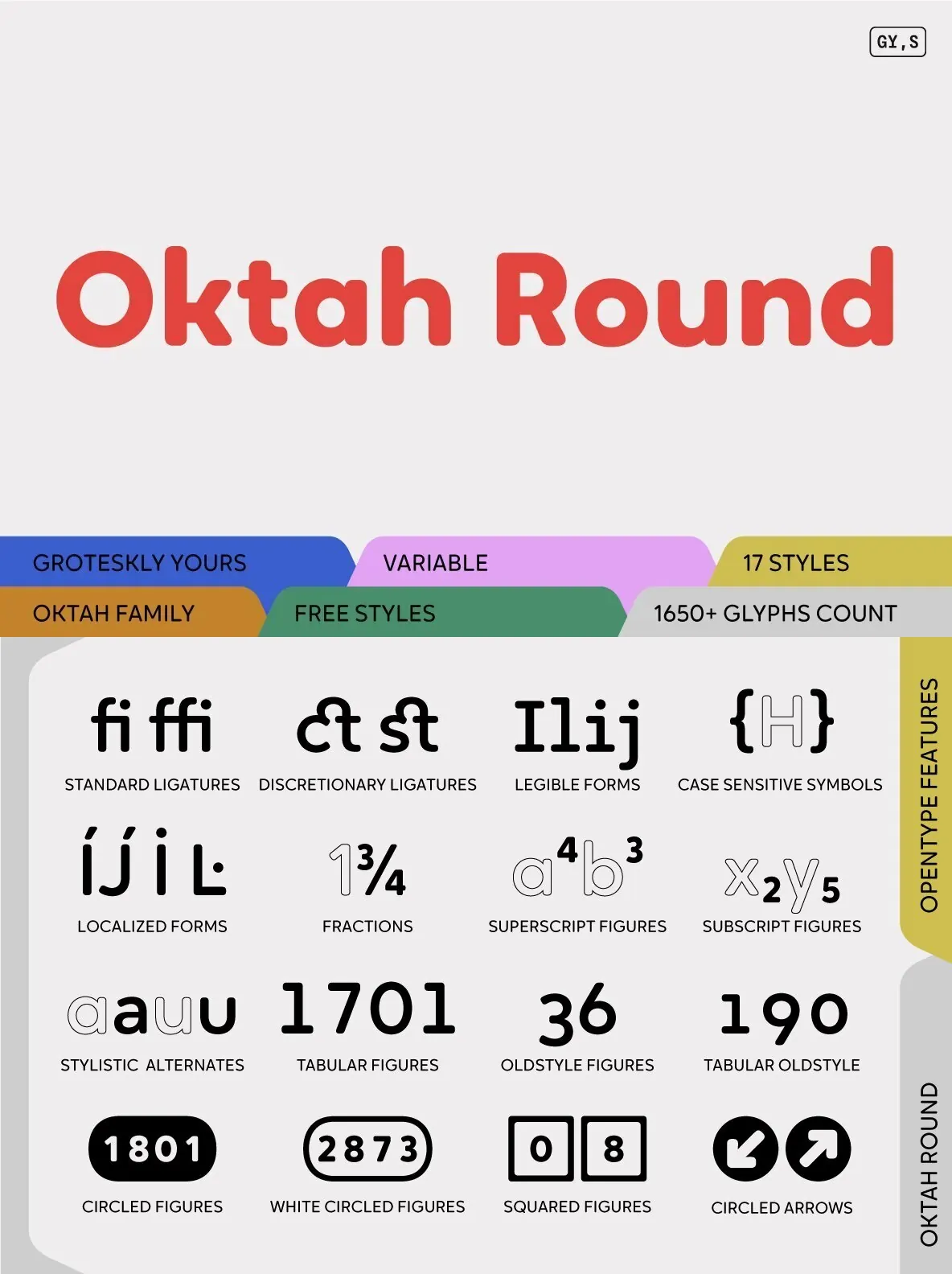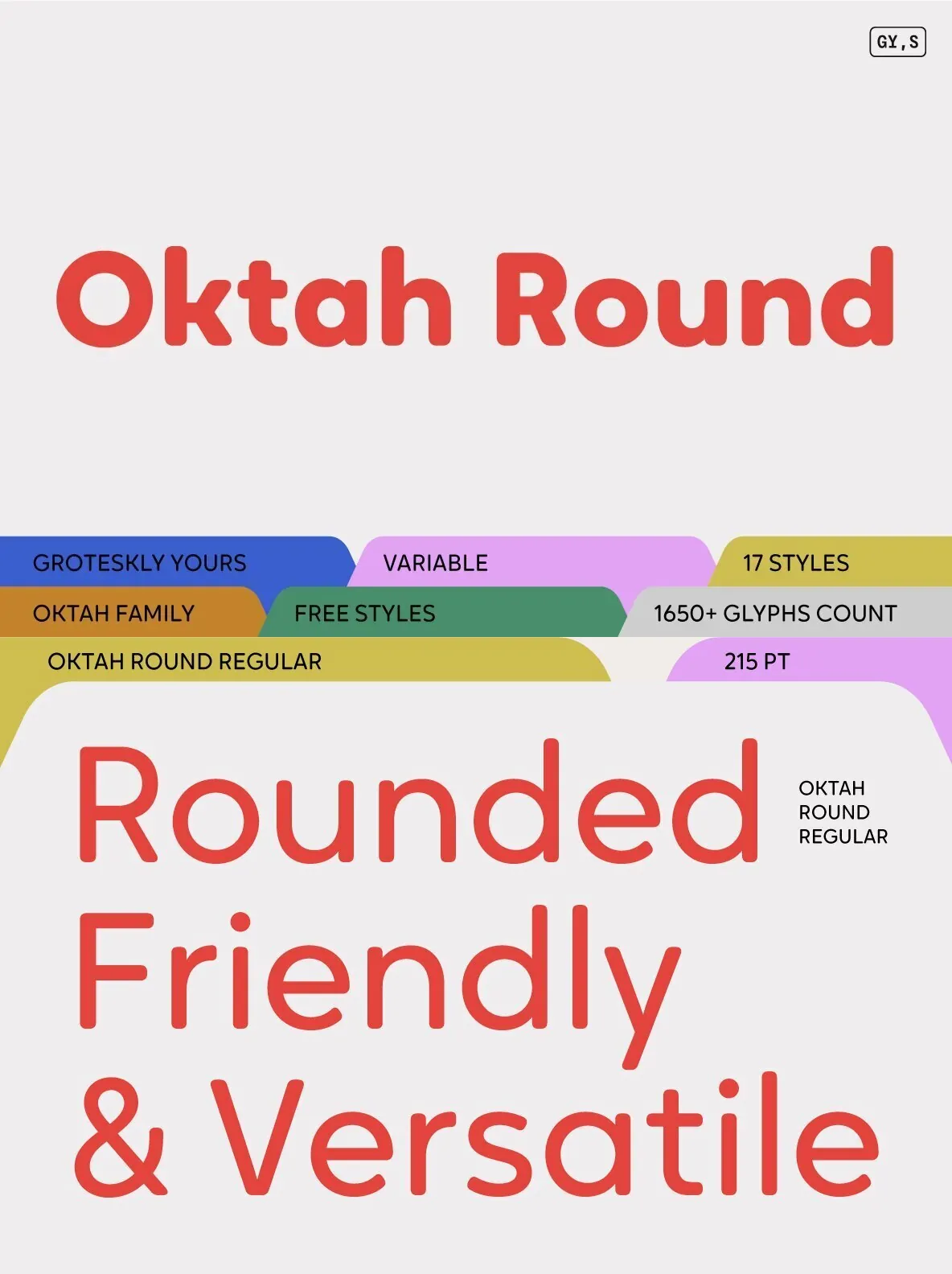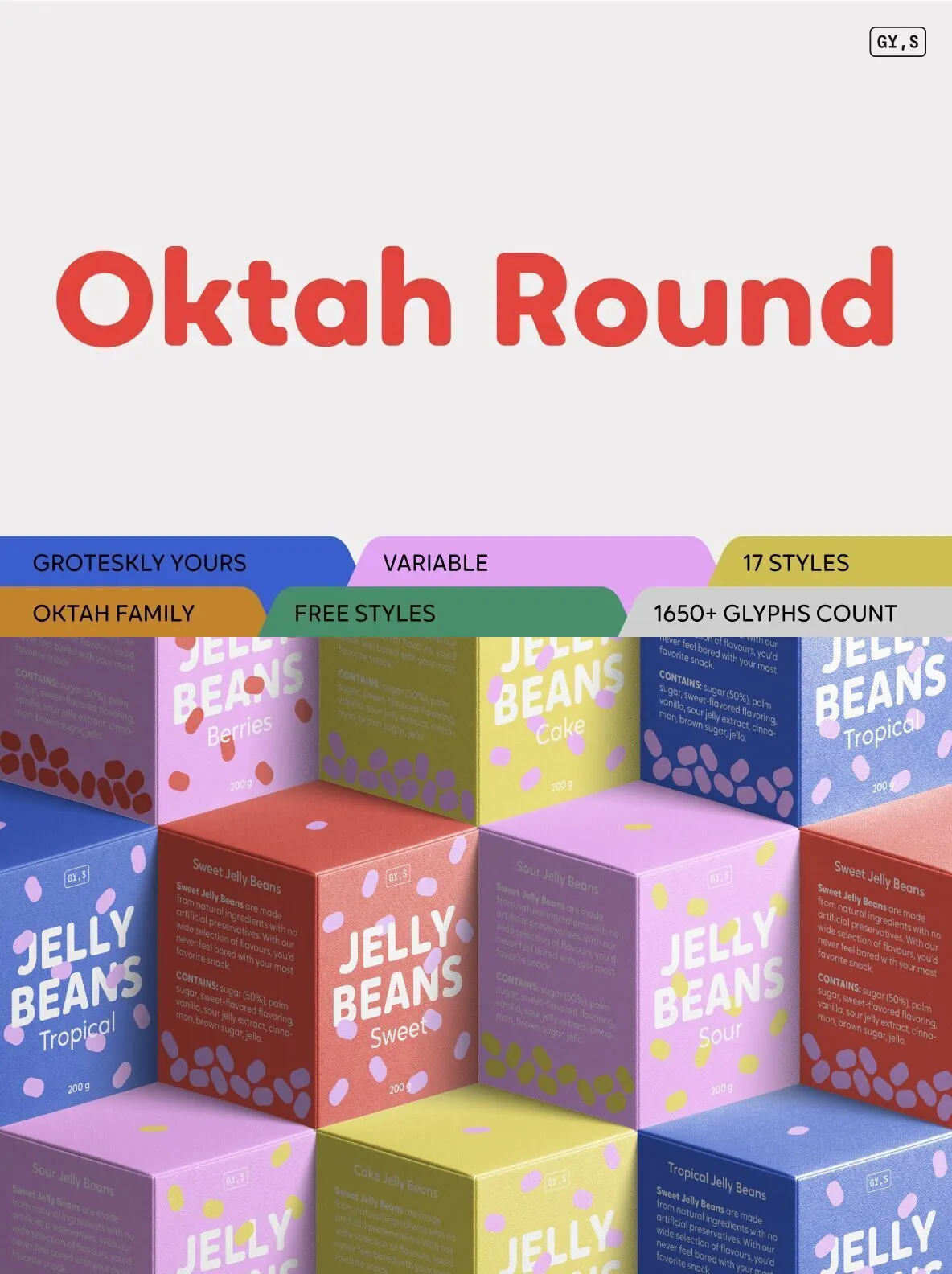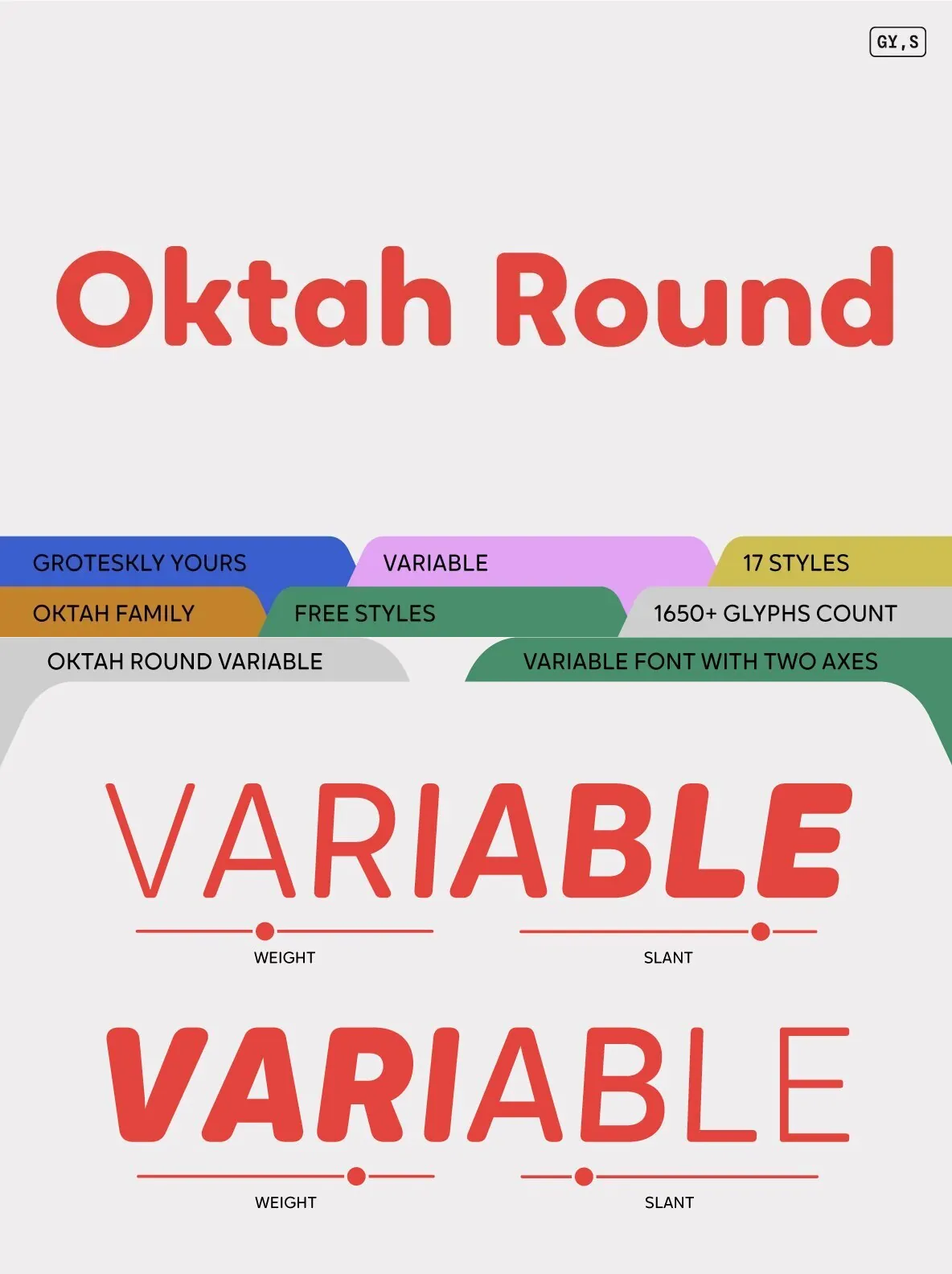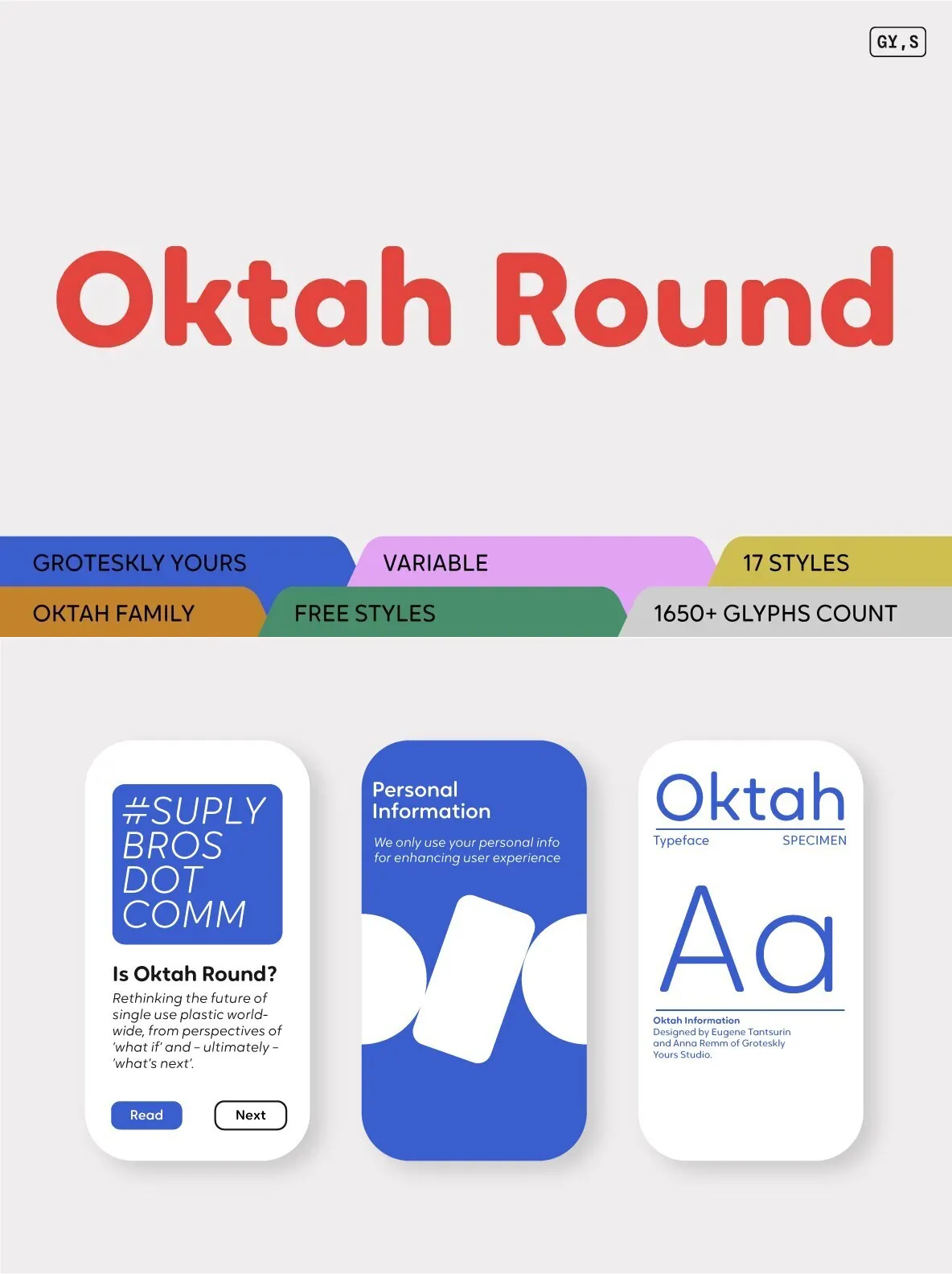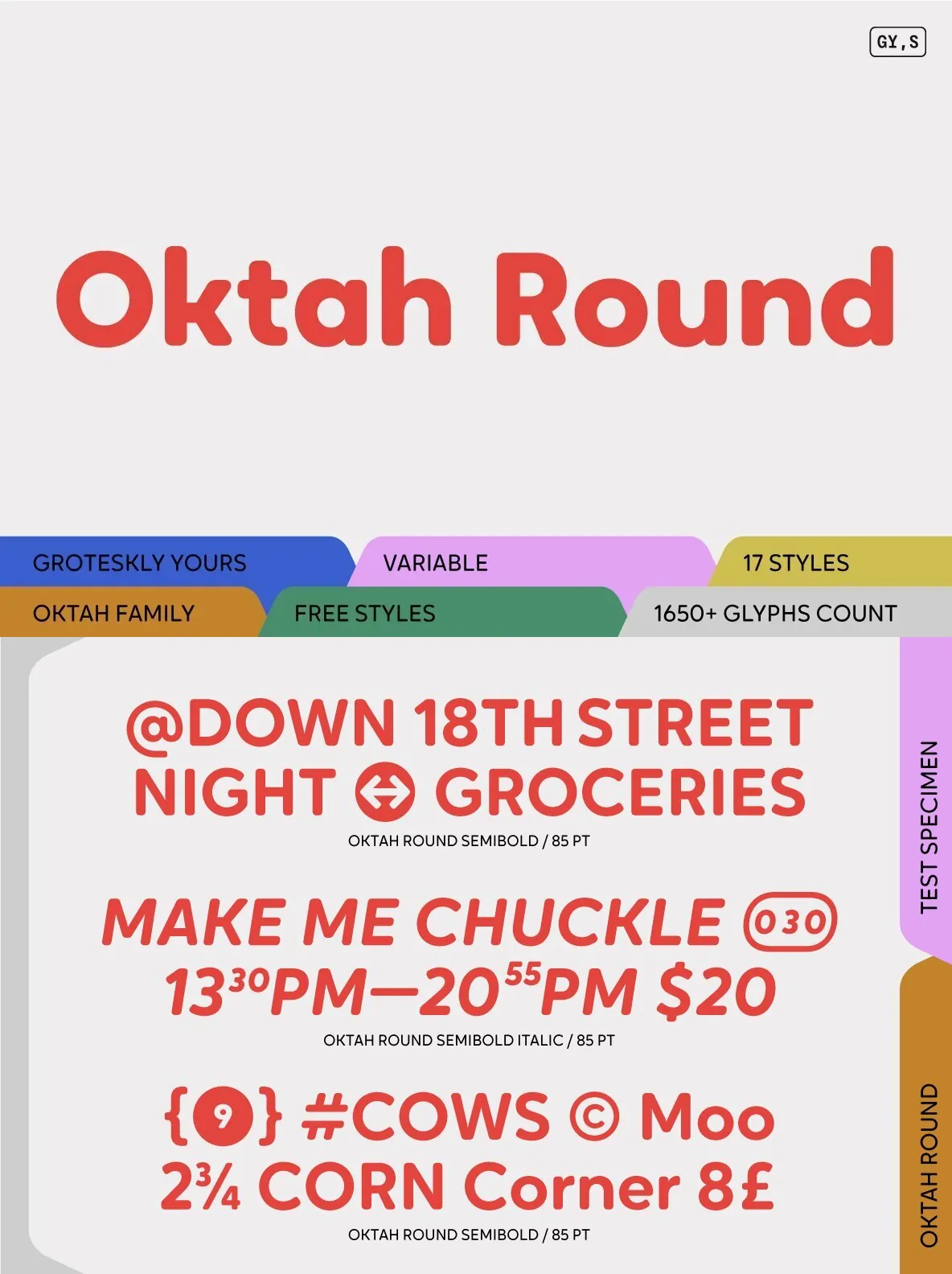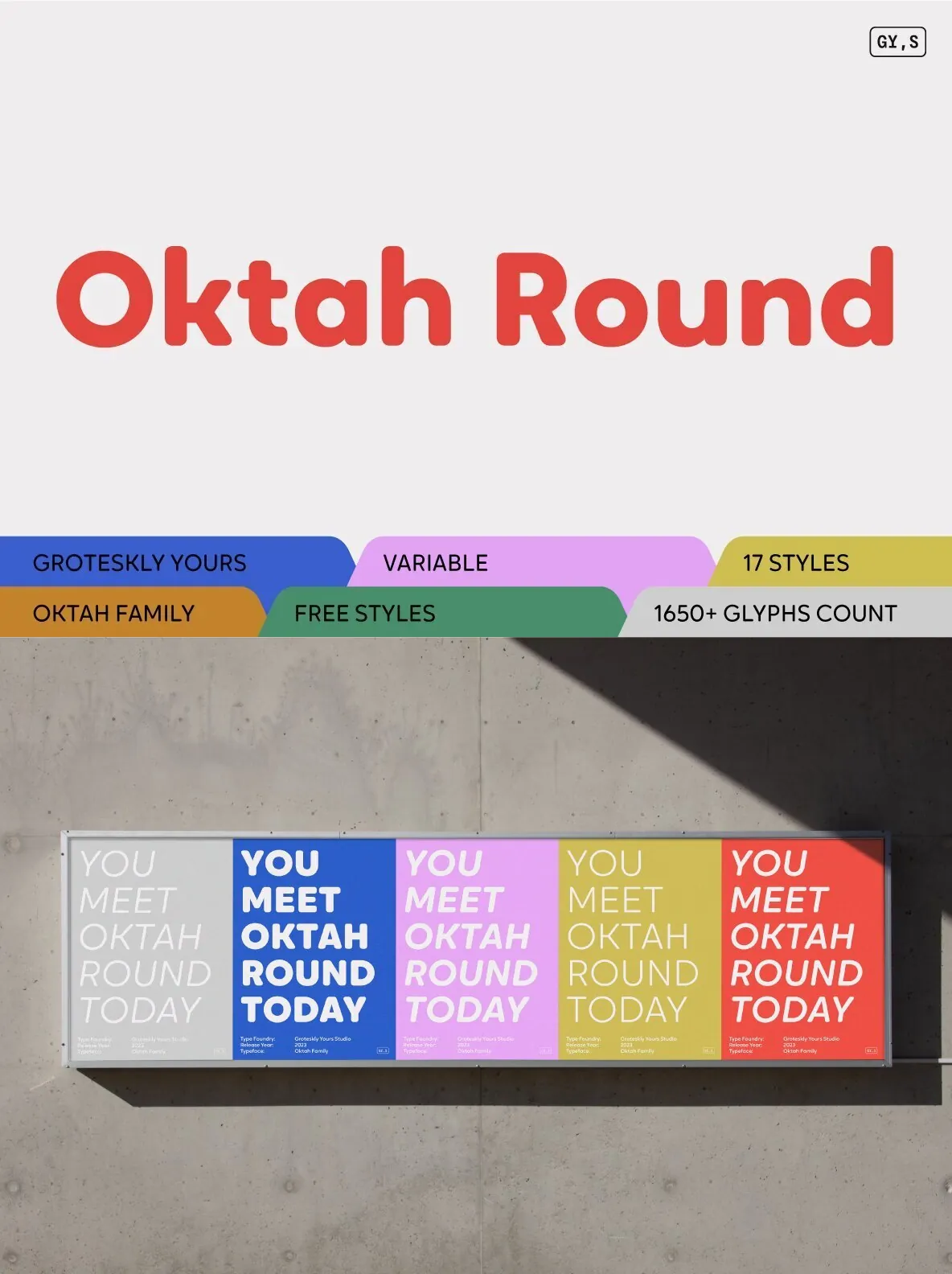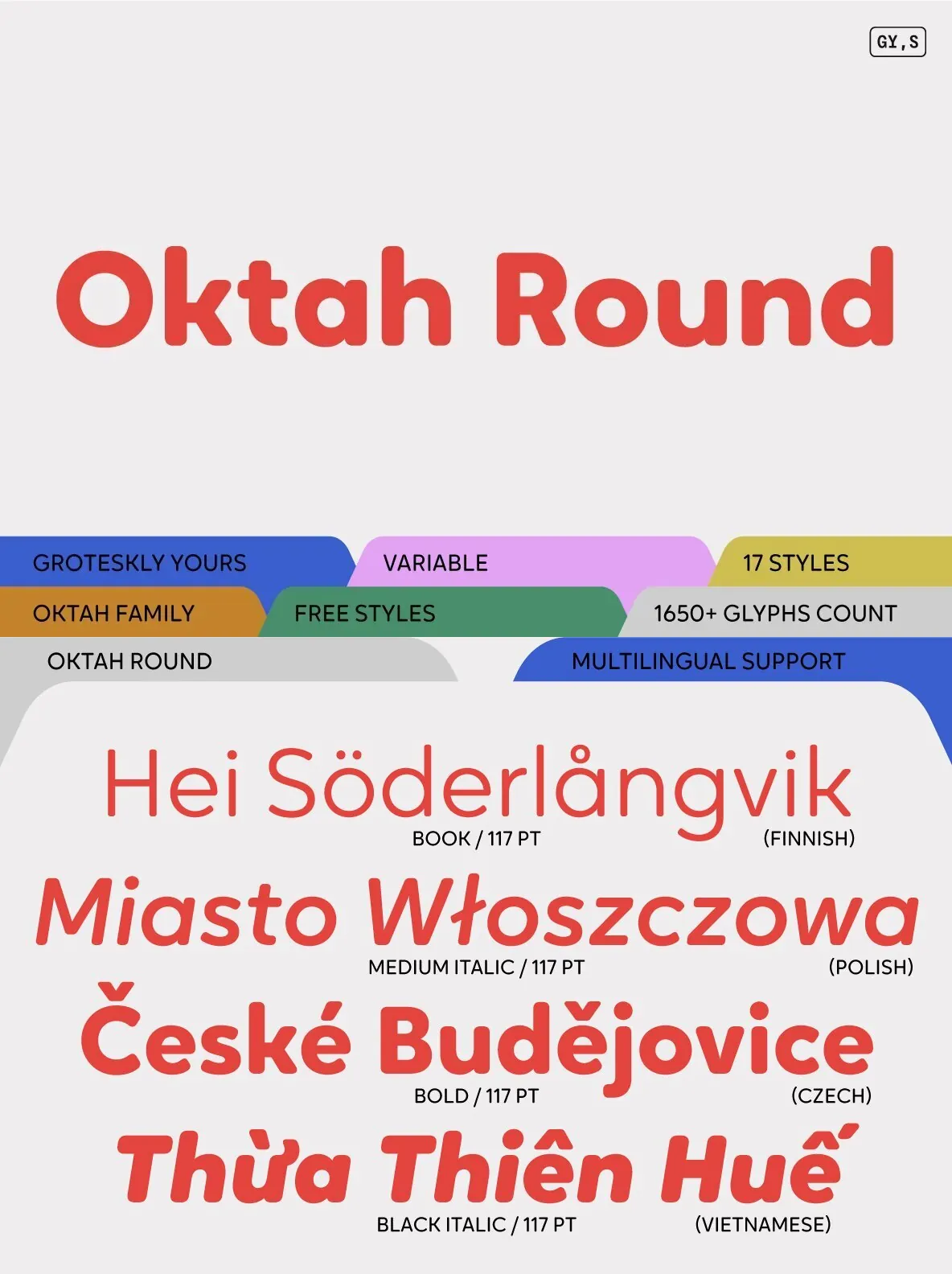
Oktah Round — Geometry with a Human Edge
Oktah Round is the rounded version of Oktah Neue. It reads soft and friendly, yet modern and warm. The design combines a human touch with high functionality, making it reliable for daily typographic work as well as polished brand systems.
Built on the geometric forms and proportions first introduced in Oktah, this rounded take does more than smooth a few corners. Some terminals were modified for sharper, more uniform curves. Other visual features—like the curving tails in l and t—were dropped for a clearer, more cut look. With 1600+ characters per font, Oktah Round is available in 16 styles (Thin to Black) and as a variable font for weight and slant angle.
Language coverage is extensive. Oktah Round supports more than 200 Latin languages and offers strong Cyrillic support, including Bulgarian, Russian, Serbian, Ukrainian, and others, plus Extended Cyrillic. The remaining glyph set includes punctuation, numbers, special symbols, and extras like squared numbers and geometric shapes. All characters are evenly spaced and carefully kerned to avoid overlaps or visible gaps across languages. The variable font includes both axes (Weight and Slant) and suits web and graphic design alike. 16 static styles can be purchased separately or as part of the Oktah Round family, and two fonts are available as free trial downloads.
Oktah Round Overview
1600+ characters per font
16 static fonts
1 variable fonts
Extensive OpenType features
Support for 220+ Languages (Latin & Cyrillic)
Special Symbols, Alternate Sets, and Features